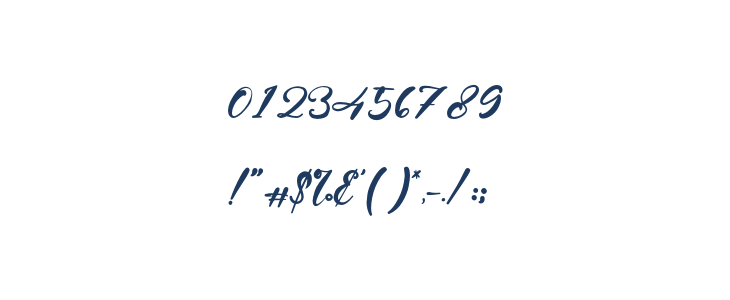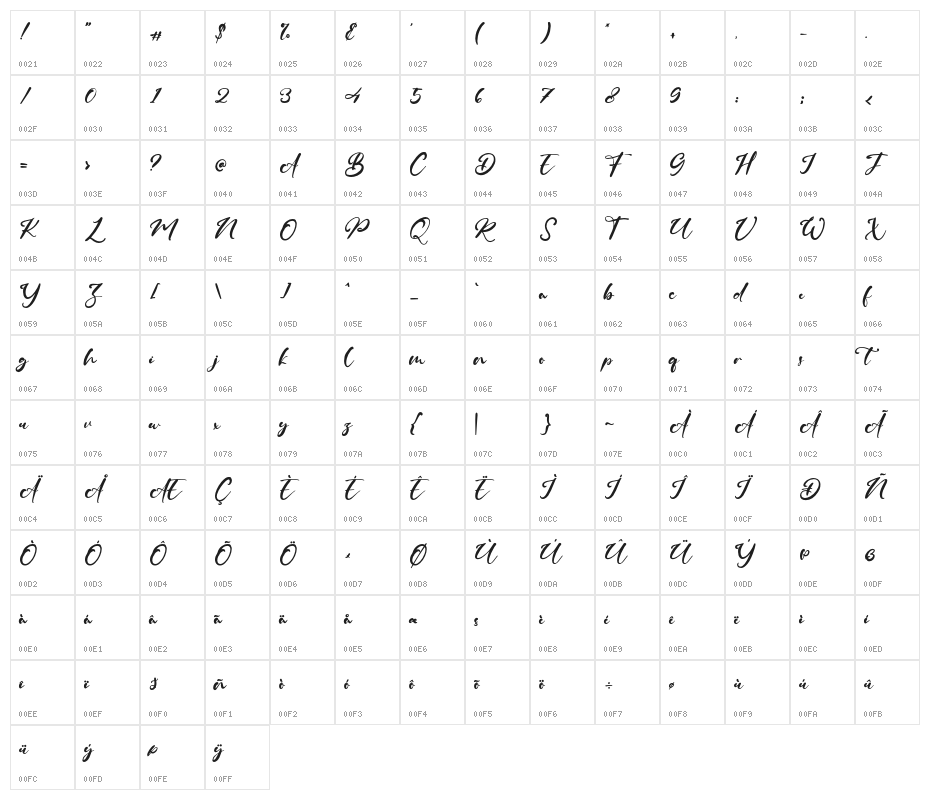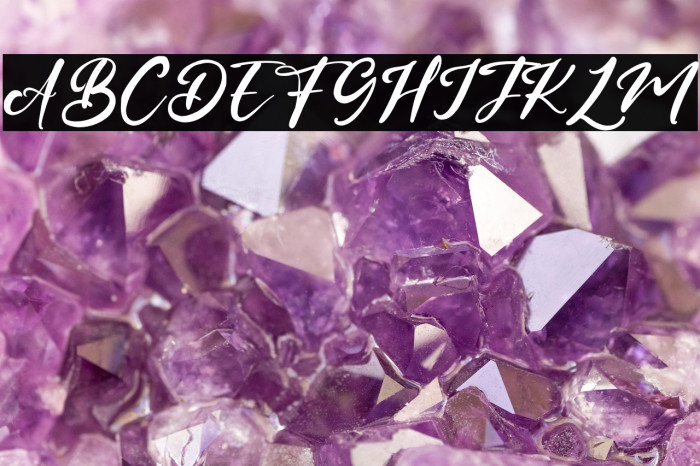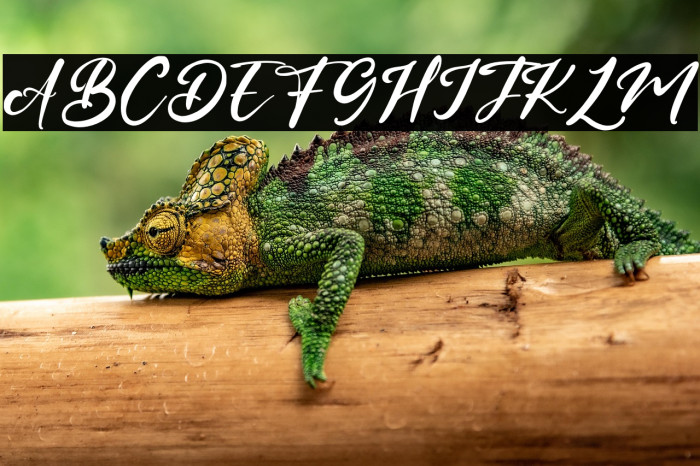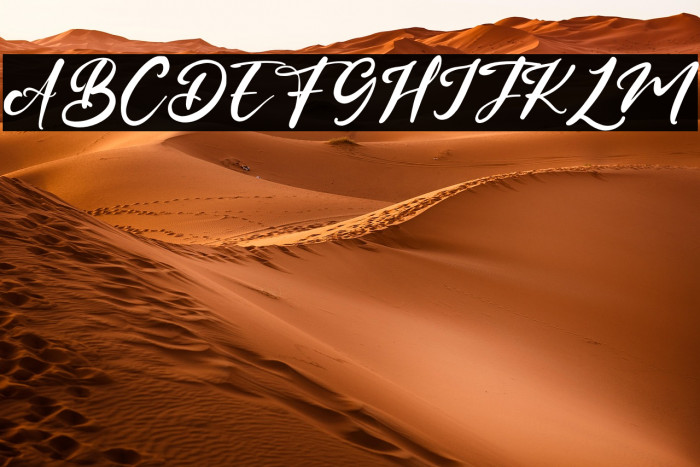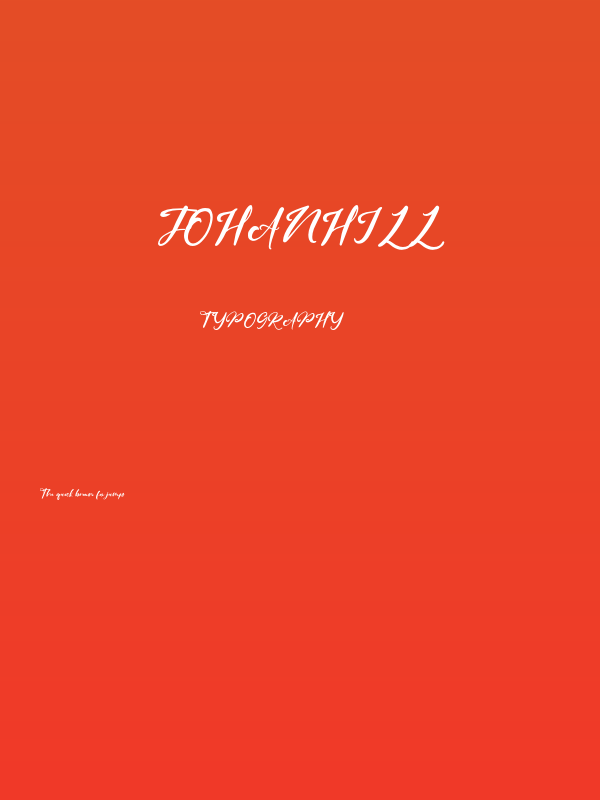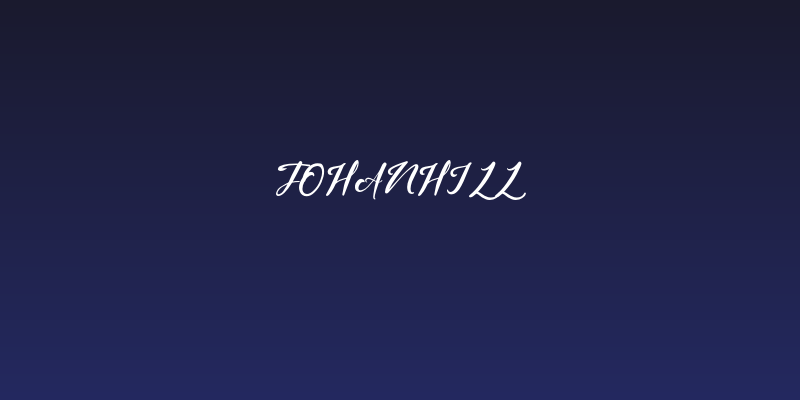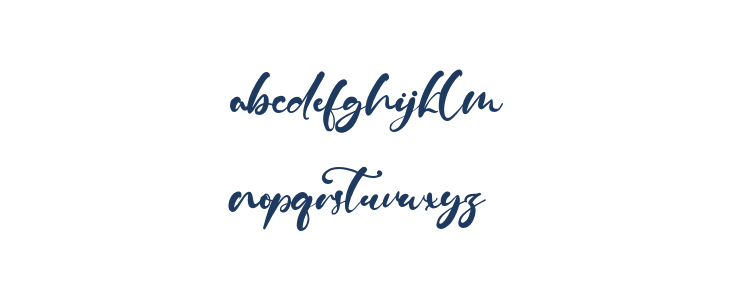
JohanHill Font
JohanHill Description
This elegant script font features flowing, cursive letters with a sophisticated and artistic flair. The uppercase letters are bold and sweeping, with intricate loops and curves that give a sense of movement and grace. The lowercase letters maintain a consistent style, with smooth connections and a slightly more compact form. Numbers and special characters are designed to complement the overall aesthetic, maintaining the same fluidity and elegance. The font's style is reminiscent of traditional calligraphy, making it suitable for formal and decorative applications.
| Proposed Projects | Ideal for wedding invitations, elegant branding, greeting cards, and decorative signage. |